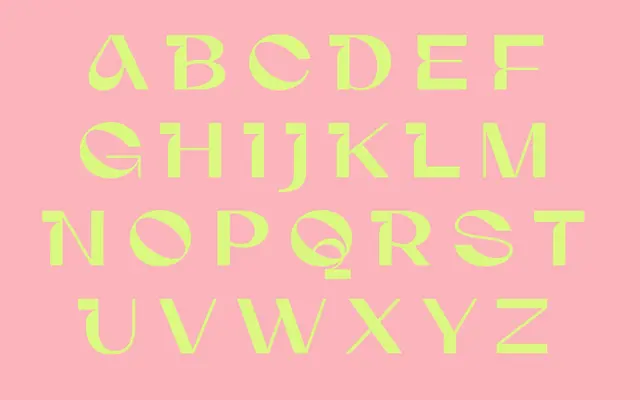
A single-weight display serif with stylistic alternates and broad Latin Extended coverage, built for headline use.
A display serif offered in one Regular weight, with a stylistic set of alternate letterforms for capital letters and a handful of lowercase characters. The character set covers Latin Extended-A and -B, including diacritics for a wide range of European languages. Ordinals and standard ligatures round out the OpenType feature set, keeping it lean but functional for titling work.
Labelled a display font by the foundry, with a single Regular weight and stylistic alternates suggesting a decorative, headline-focused design rather than a text workhorse.